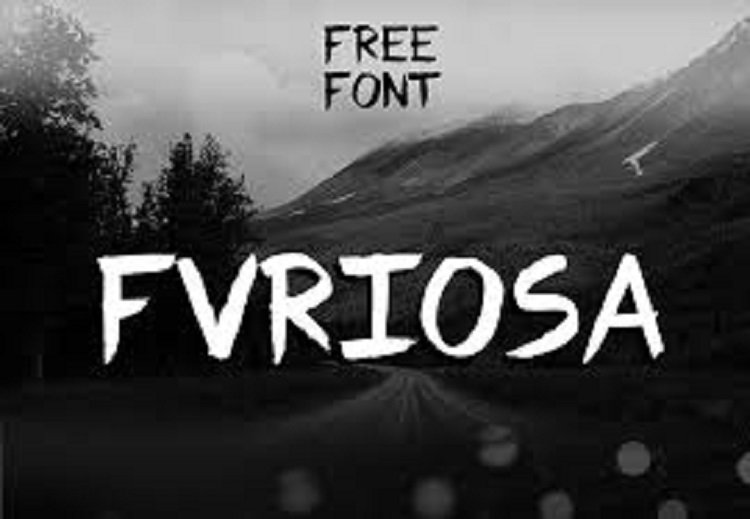
Fvriosa Font
Fvriosa is the cool handmade brush font, made with furious love by Fausto Furioso. This font suited for use in advertising, for headlines, labels, tags, posters, etc. Make sure to check out more awesome works at his portfolio.